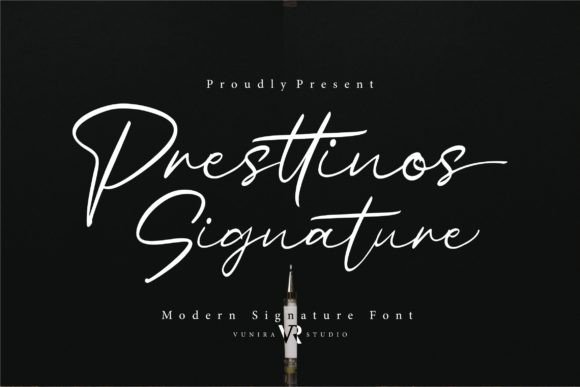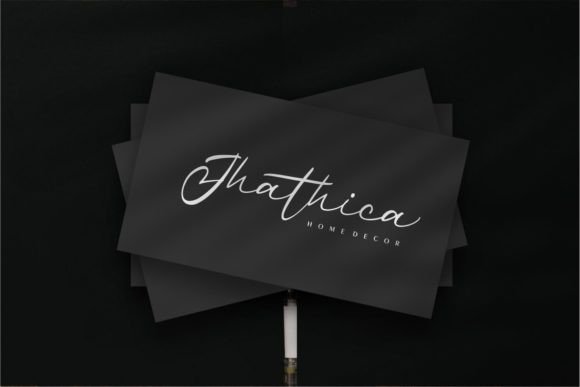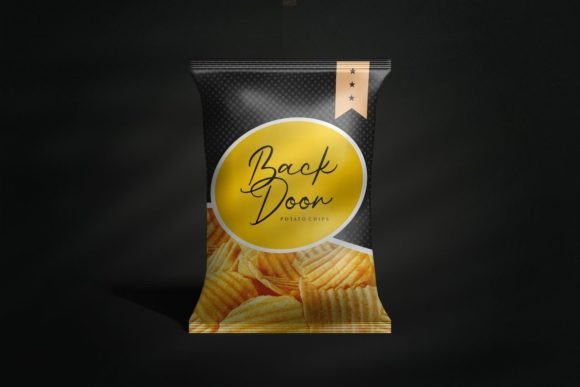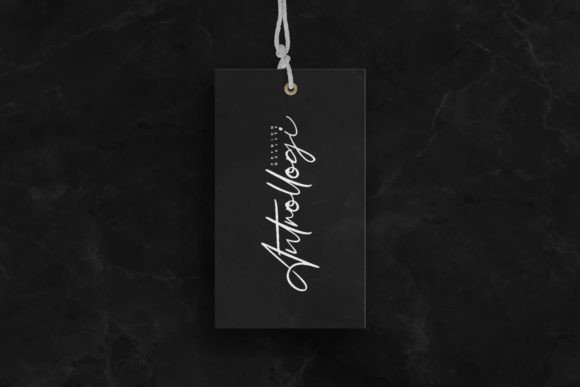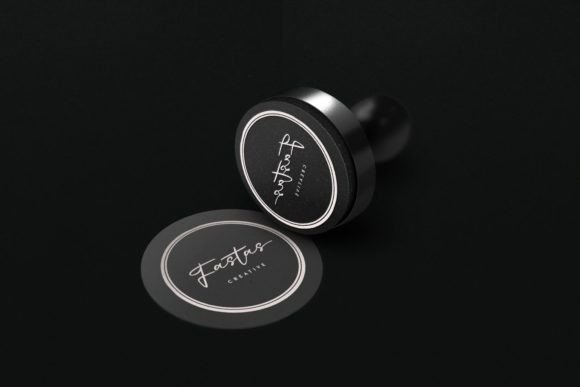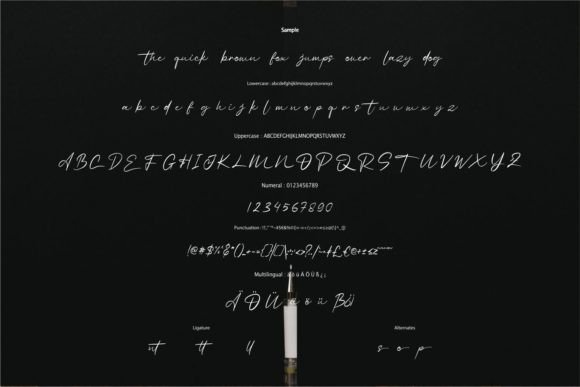
Presttinos Signature Font
A Modern Calligraphy Script Typeface
Presttinos Signature is a modern script font designed to bring sophistication and style to your creative projects. Inspired by classic calligraphy, it combines smooth strokes with contemporary elegance. Whether you’re designing invitations, branding materials, or social media graphics, this font delivers a polished, premium feel.
Its flowing lines and clean curves make it perfect for both professional and personal designs.
Presttinos Signature is a versatile font you’ll love using again and again. It’s perfect for wedding invitations, save-the-date cards, and greeting cards. The graceful calligraphy adds a romantic, heartfelt touch to any event.
For branding, Presttinos Signature shines on logos, business cards, and packaging. The signature script helps your brand feel memorable, stylish, and approachable.
This font also works beautifully in quotes, posters, and custom gifts. The elegant lettering gives every message a unique, high-end appearance.
On social media, Presttinos Signature keeps your visuals cohesive and refined. Whether you’re sharing promotions, announcements, or inspirational content, this font makes your posts stand out.
Even with its decorative flourishes, Presttinos Signature stays clear and legible at any size. Balanced spacing and smooth connections between letters make your text neat and easy to read, from large headlines to small captions.
For a modern, professional design, pair Presttinos Signature with a clean sans-serif font. Use it for titles and highlighted text, and the sans-serif for supporting details. This combination creates layouts that feel organized and sophisticated.
To highlight Presttinos Signature’s elegant style, use neutral backgrounds and soft colors. Shades like ivory, blush pink, and warm gray help the script stand out without overwhelming the design.
When designing invitations or packaging, consider adding subtle borders or delicate icons that complement the handwritten look.
On social media, embrace white space to keep your text clear and focused.
Think about the mood you want to create. Presttinos Signature is ideal for projects that should feel refined, romantic, and timeless.
Presttinos Signature isn’t just another script font—it’s a creative tool that elevates every design with grace and personality. From professional branding to personal keepsakes, this font adapts effortlessly to any project and brings a polished touch to your work.
Adding Presttinos Signature to your font collection means you’ll always have a versatile, beautiful option ready for any purpose. Whether you’re creating logos, invitations, or social media graphics, this font makes every project feel special and memorable.